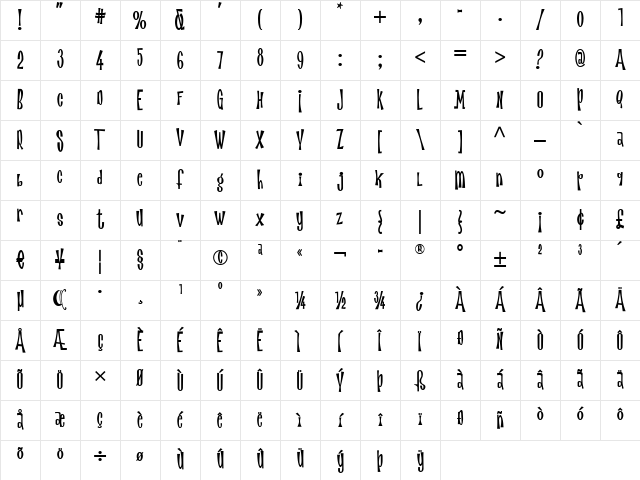
MagicTwangerNF Regular
Foundry: Nick's Fonts
Designer: Nick Curtis
Design Context for MagicTwangerNF
MagicTwangerNF is a composed and adaptable typeface that performs quietly and consistently across a wide range of design contexts.